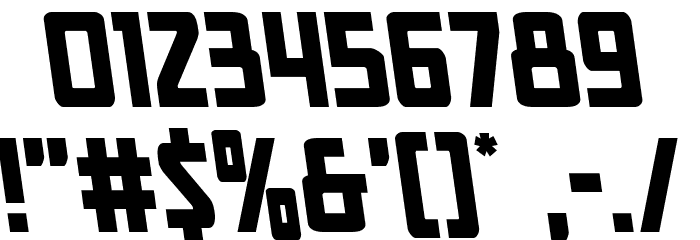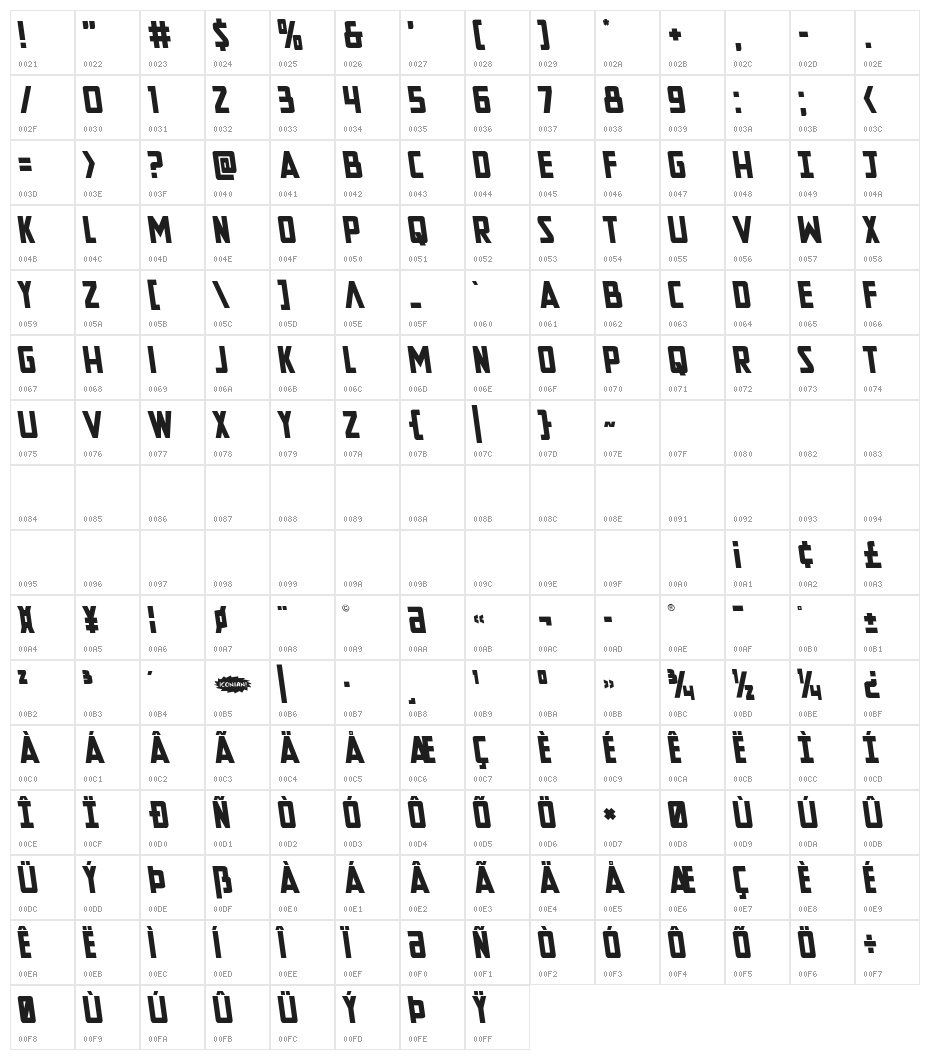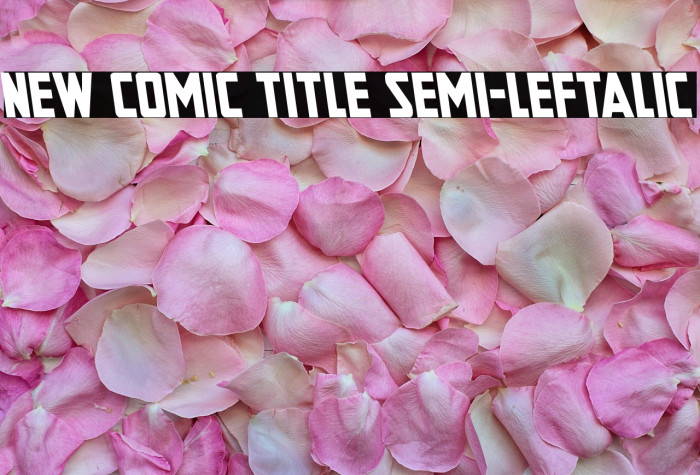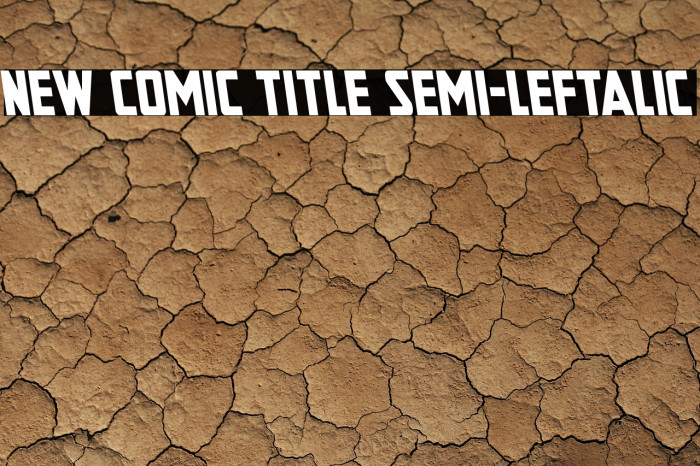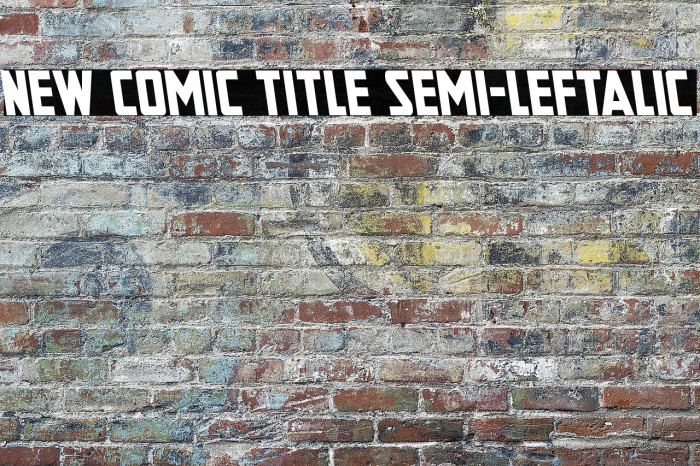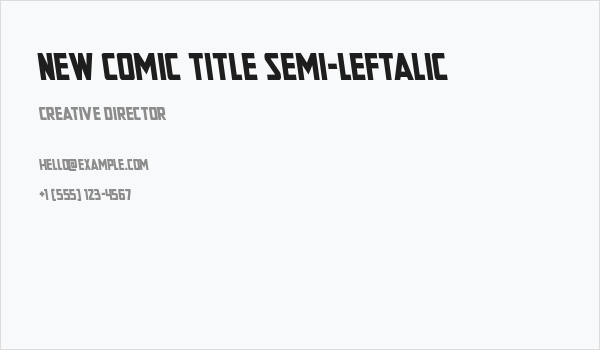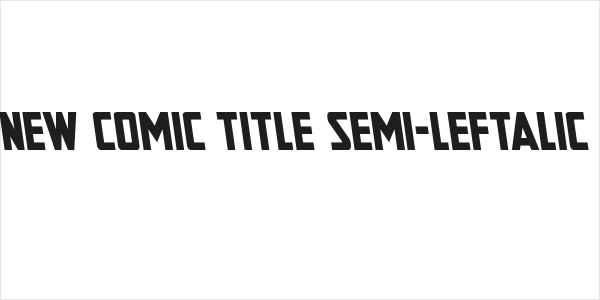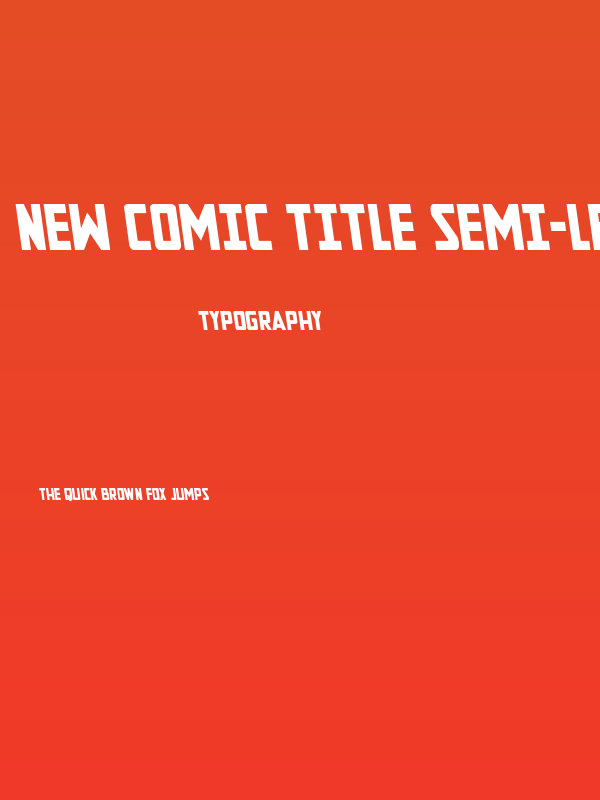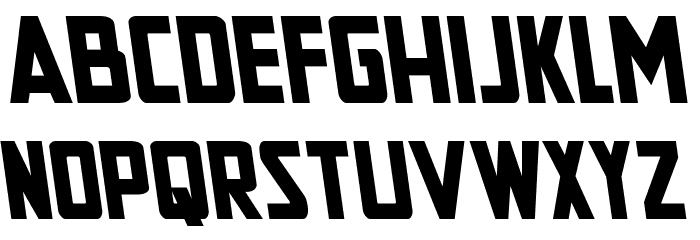
New Comic Title Semi-Leftalic Font
New Comic Title Semi-Leftalic Description
This font features a bold and dynamic style with a slight leftward slant, giving it a unique and energetic appearance. The characters are designed with a strong geometric structure, providing a modern and impactful look. The uppercase letters are prominent and assertive, while the lowercase letters maintain consistency with their angular forms. The numerals and special characters are crafted to match the boldness and style of the alphabet, ensuring a cohesive overall design. The font's distinctiveness makes it suitable for attention-grabbing headlines and titles.
| Proposed Projects | Ideal for comic book titles, posters, and branding that requires a bold and dynamic presence. |